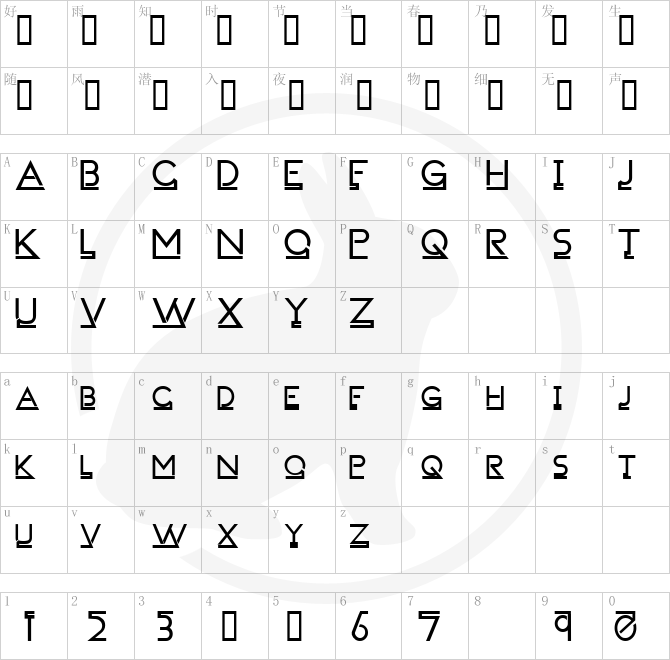
- Font Name:FailedFont 1
FailedFont-1-Linemorph-copy-1-.ttf is a very beautiful artistic font, FailedFont-1-Linemorph-copy-1-.ttf is widely used in the design and printing of various books and pictures,FailedFont-1-Linemorph-copy-1-.ttf has a strong visual impact,FailedFont-1-Linemorph-copy-1-.ttf is a commonly used font in newspapers, magazines and books, and is used in posters, e-commerce Poster design, store design, logo design, font design and other fields.FailedFont-1-Linemorph-copy-1-.